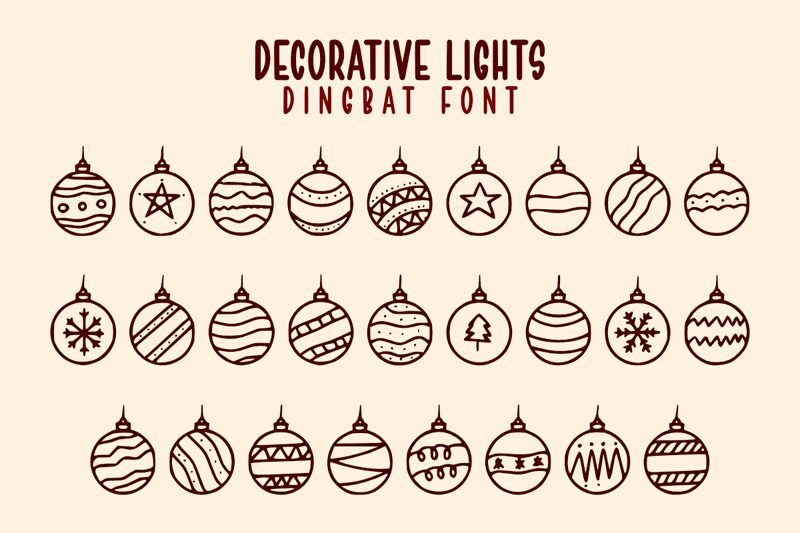
Decorative Lights
Decorative Lights, designed by Muhammad Yafinuha, is not just a font—it's a festive toolkit for transforming text into a celebratory visual feast.
As a dingbat typeface inspired by the sparkle of Christmas tree decorations and the roundness of Christmas balls, it offers designers an array of charming glyphs perfect for seasonal projects.
Whether crafting holiday cards, creating event invitations, or adding an air of merriment to promotional materials, Decorative Lights infuses your designs with the spirit of the holidays in a way that's both playful and elegant.